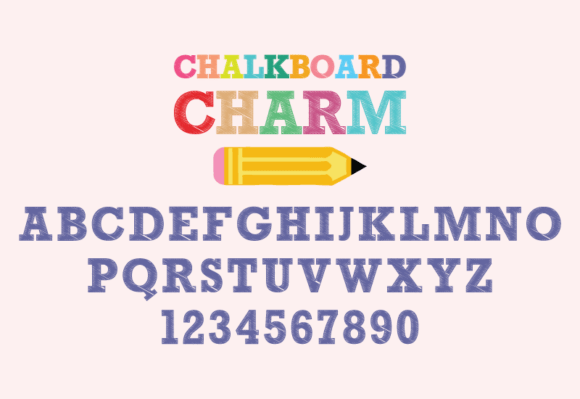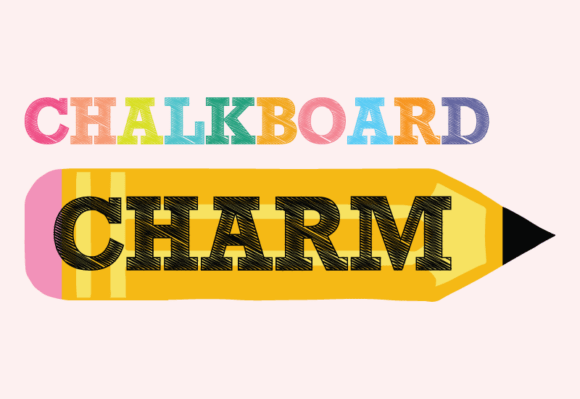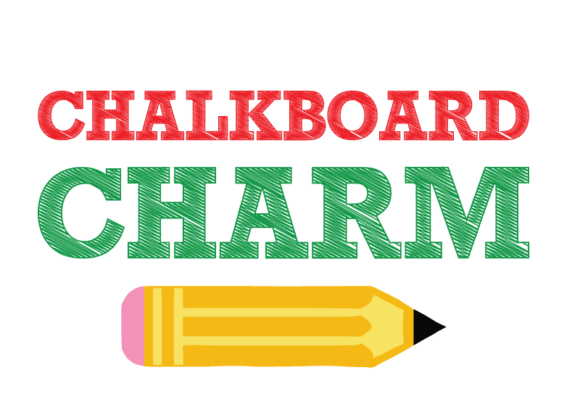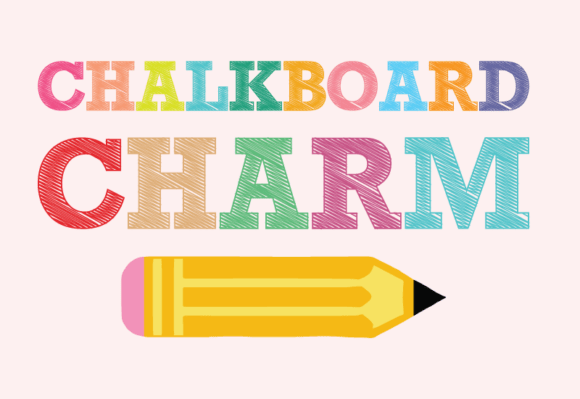
Introducing Chalkboardcharm Regular Font: A Delightful Blend of Retro and Playful Aesthetics
In the world of typography, few fonts manage to evoke the perfect blend of nostalgia and playfulness. However, Chalkboardcharm Regular Font achieves just that, making it an ideal choice for designers and crafters looking for a unique and engaging display font. This delightful font combines the classic structure of retro serif fonts with the whimsical charm of a chalkboard, making it perfect for educational and children-oriented projects.
A Unique Blend of Retro Serif and Playful Aesthetics
“Chalkboard Charm” is a delightfully scholastic display font that blends retro serif structure with playful, classroom-inspired aesthetics. The uppercase letterforms are solid and confident, with traditional slab serifs, but gain uniqueness through their textured fill patterns—cross-hatching and line shading that mimic the look of chalk on a board or crayon scribbles. This distinctive feature sets Chalkboardcharm apart from other fonts and makes it an excellent choice for designs that require a touch of nostalgia and playfulness.
A Rainbow of Colors to Evoke Creativity and Imagination
One of the standout features of Chalkboardcharm Regular Font is its energetic rainbow palette. Each character is assigned a different color, creating a vibrant and lively effect that’s perfect for educational and children-oriented contexts. This colorful approach not only adds visual appeal but also evokes feelings of creativity, imagination, and youthful charm. Whether you’re designing back-to-school materials, learning resources, or classroom signage, Chalkboardcharm’s rainbow palette is sure to captivate your audience.
Perfect for Educational and Children-Oriented Projects
Chalkboardcharm Regular Font is specifically designed for use in educational and children-oriented projects. Its playful and engaging aesthetic makes it an excellent choice for back-to-school designs, learning materials, classroom signage, and teacher resources. The font’s bold legibility and lighthearted personality ensure that it will capture the attention of young learners and inspire a love of learning.
Pair it with a Cute Pencil Illustration for Added Charm
To further enhance the charm of Chalkboardcharm Regular Font, consider pairing it with a cute pencil illustration. This delightful combination adds an extra touch of whimsy and playfulness to your designs, making them even more engaging and memorable. The pencil illustration also reinforces the font’s educational theme, creating a cohesive and visually appealing design.
Key Features of Chalkboardcharm Regular Font
- Retro serif structure with traditional slab serifs
- Textured fill patterns that mimic chalk on a board or crayon scribbles
- Energetic rainbow palette with a different color for each character
- Bold legibility and lighthearted personality
- Ideal for educational and children-oriented projects, including back-to-school designs, learning materials, classroom signage, and teacher resources
Chalkboardcharm Regular Font is a delightful and engaging display font that’s perfect for designers and crafters looking to add a touch of nostalgia and playfulness to their projects. Its unique blend of retro serif structure and playful aesthetics, combined with its energetic rainbow palette and cute pencil illustration, make it an excellent choice for educational and children-oriented projects. With its bold legibility and lighthearted personality, Chalkboardcharm Regular Font is sure to inspire creativity, imagination, and youthful charm in any design.